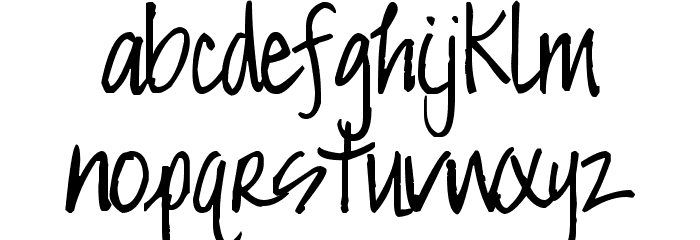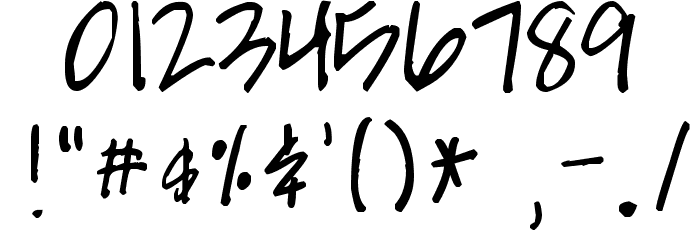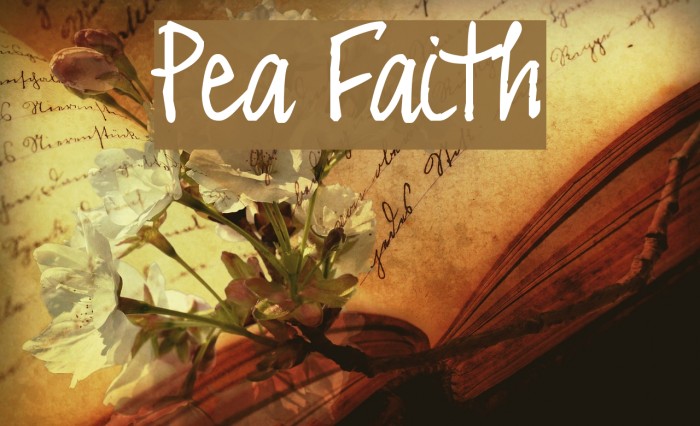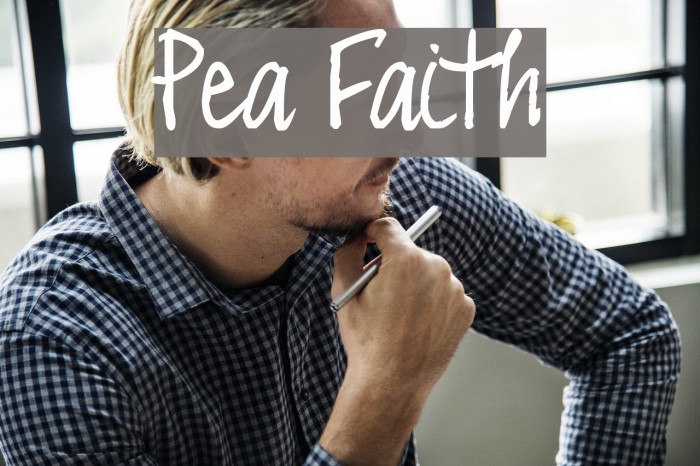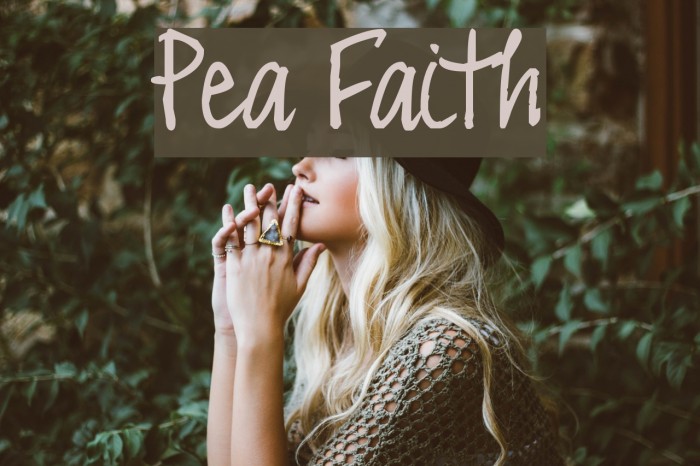
Pea Faith Font
This font exudes a casual, handwritten style with a playful and personal touch. The letters are slightly slanted, giving it an informal and dynamic appearance. The strokes are uneven, mimicking the natural flow of handwriting, which adds to its charm and authenticity. The uppercase letters are bold and prominent, while the lowercase letters maintain a consistent flow, enhancing readability. The numbers and special characters are crafted with the same playful style, ensuring a cohesive look across all text elements. This font is ideal for projects that require a personal, friendly, and approachable feel.
A playful, handwritten font with a casual and dynamic style.
- Proposed Projects: Ideal for greeting cards, personal blogs, casual invitations, and social media graphics.
- Overall Style: Casual
- Use Case: Logos, Headlines, Informal Text